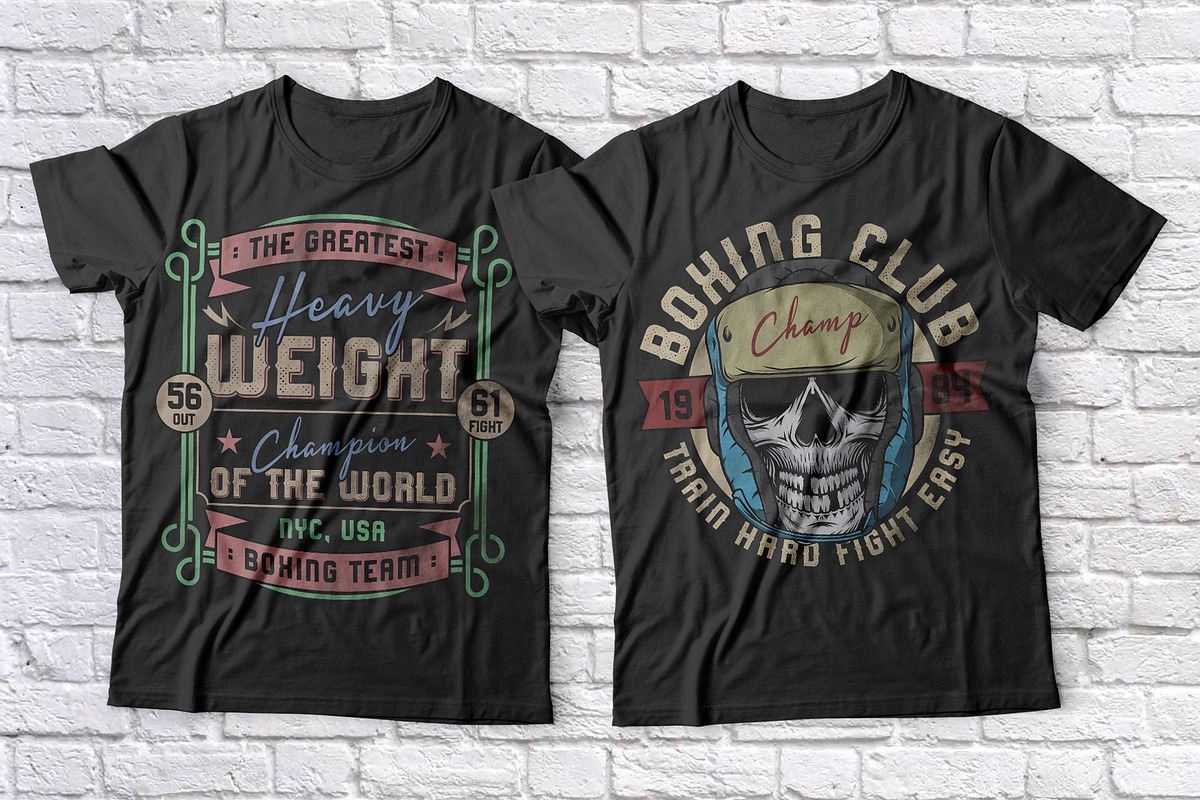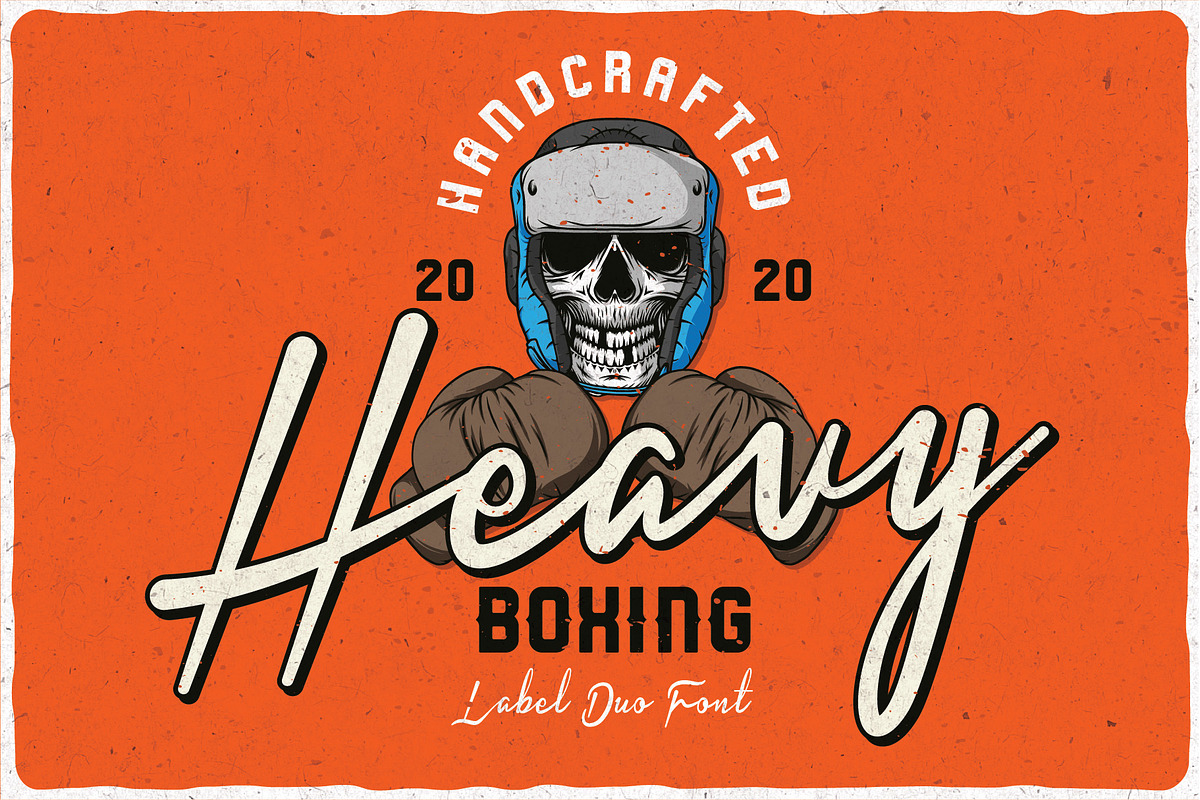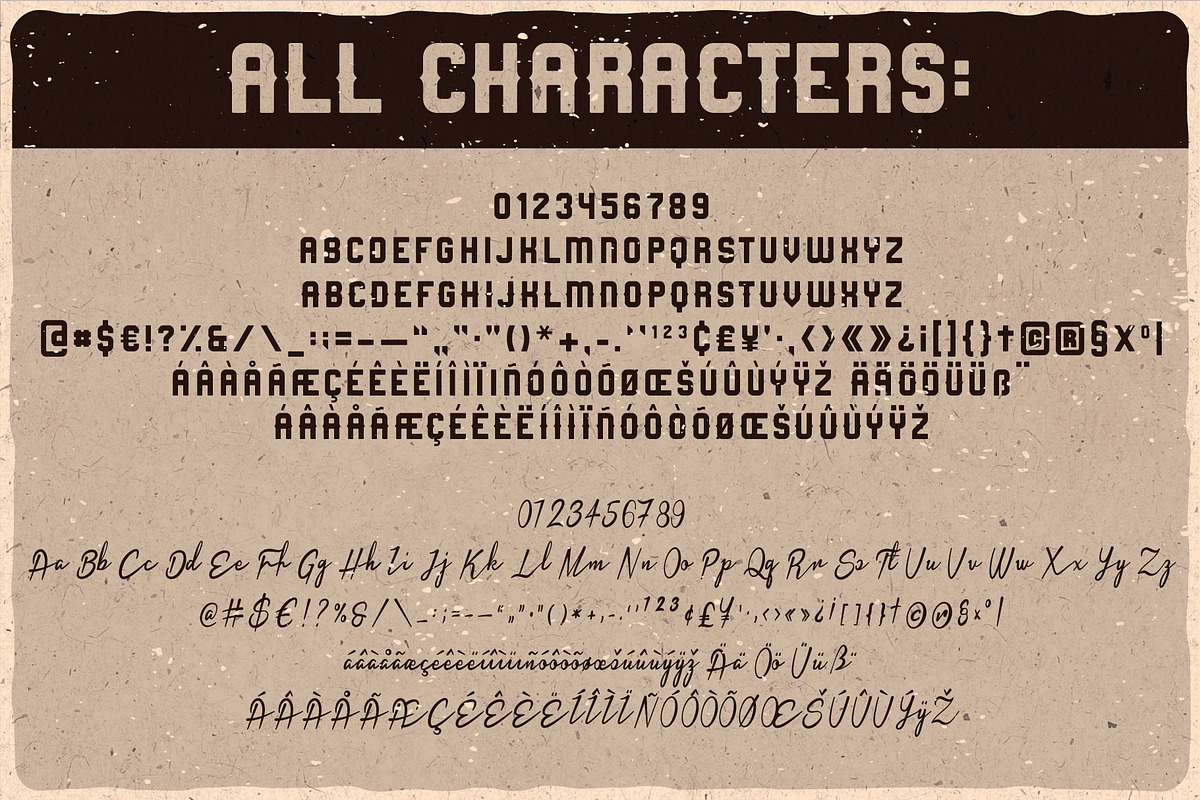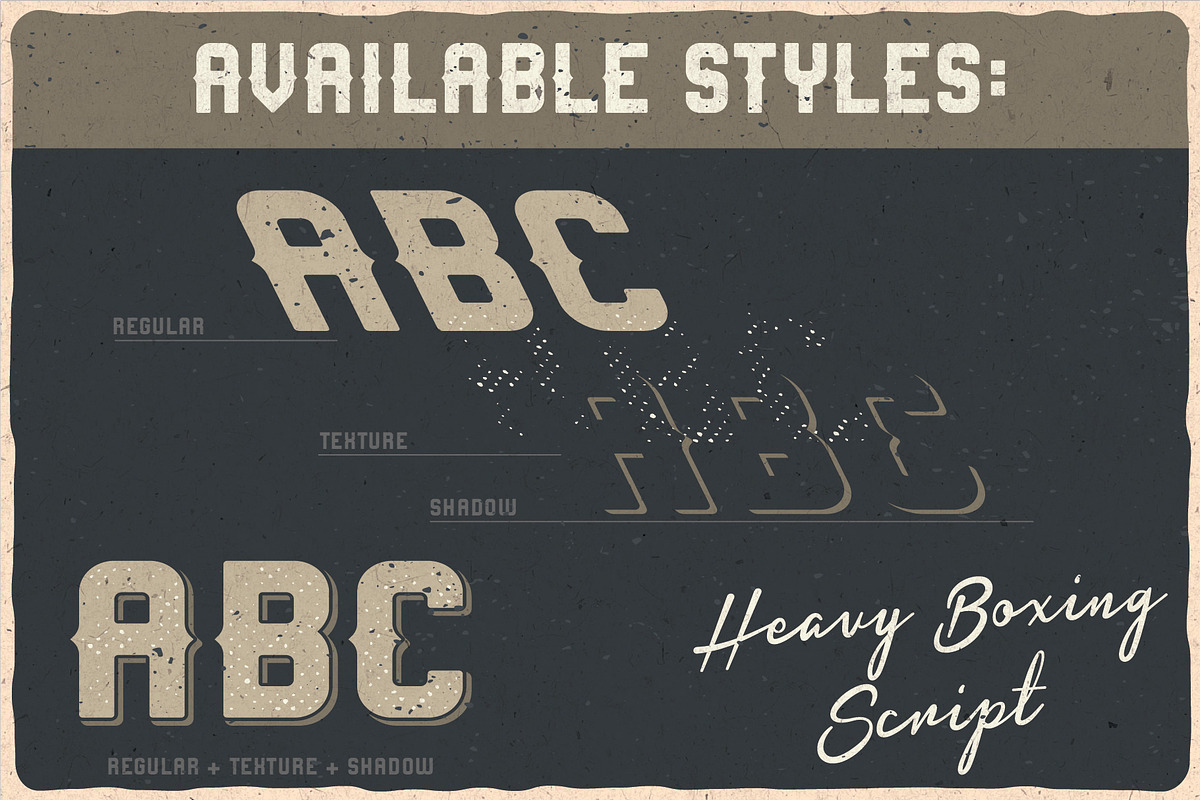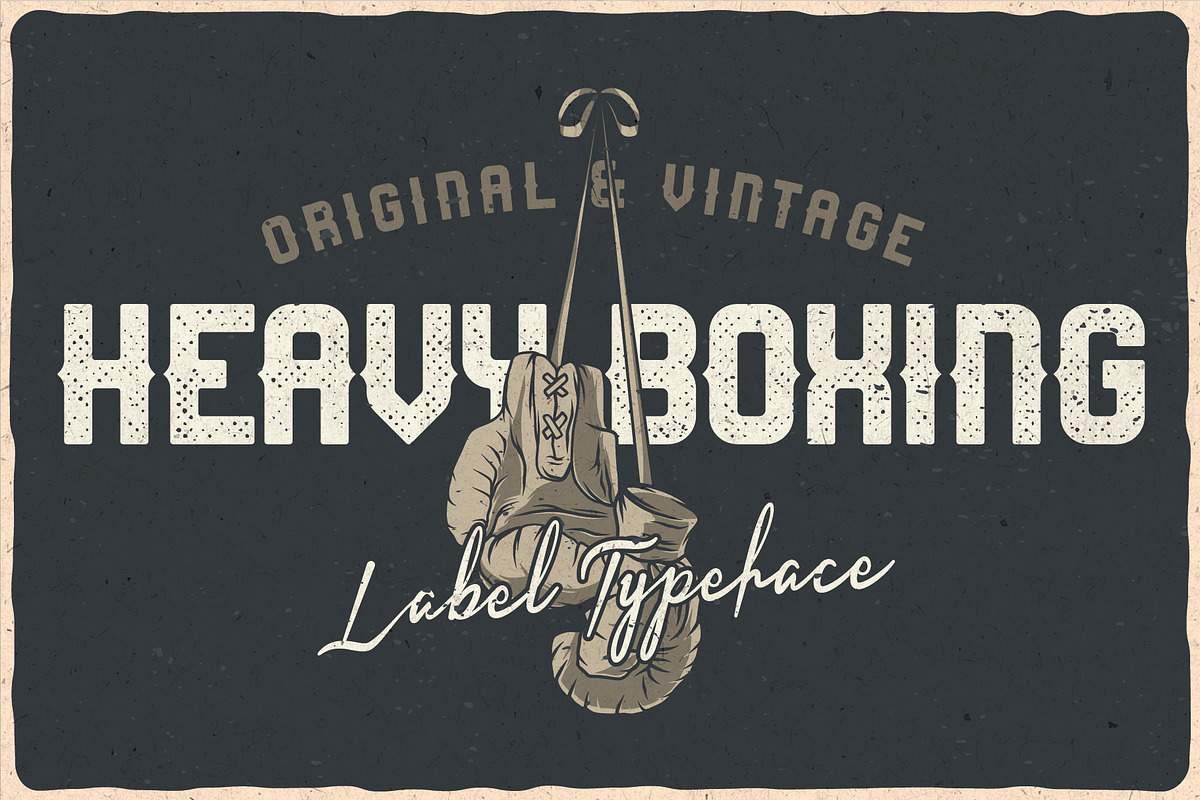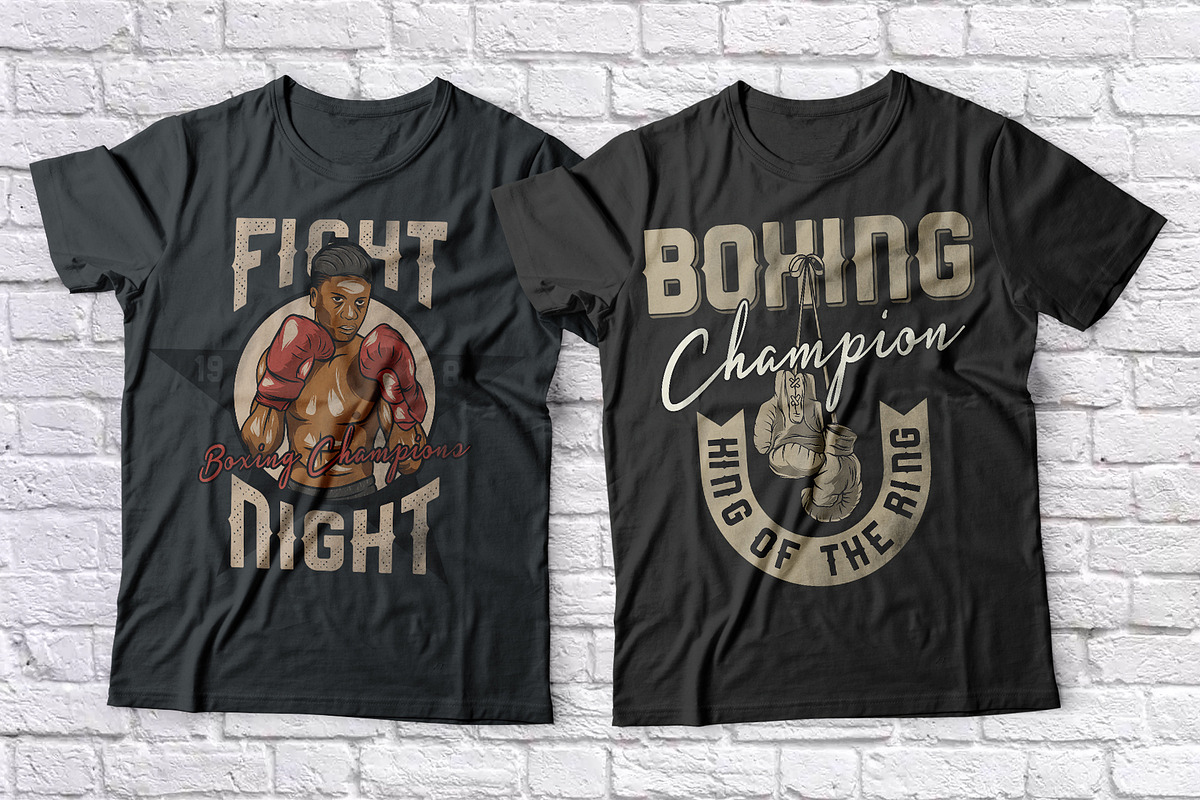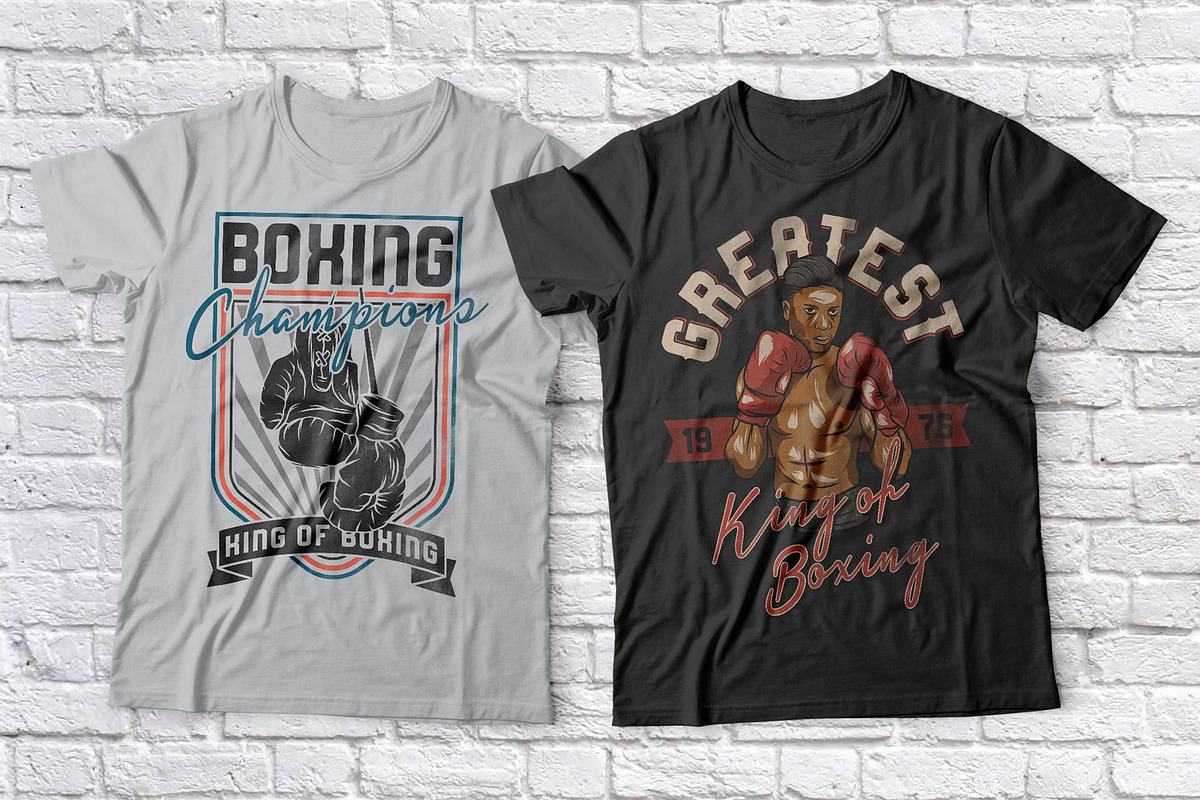
Heavy Boxing. Font Duo
Introducing a vintage look label duo font named "Heavy Boxing". This family includes regular bold and strong font and cute handwritten script font. Regular font have layered effects font styles. Samples you can find on the preview. This font will good viewed on any retro design like poster, t-shirt, label, logo etc.
- This family includes regular bold and strong font and cute handwritten script font.